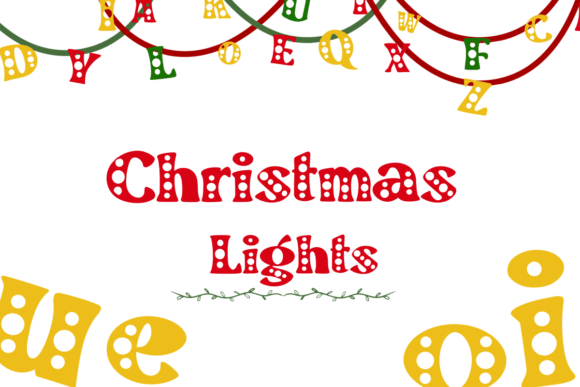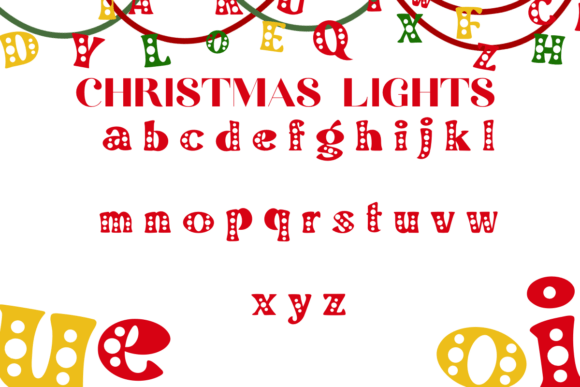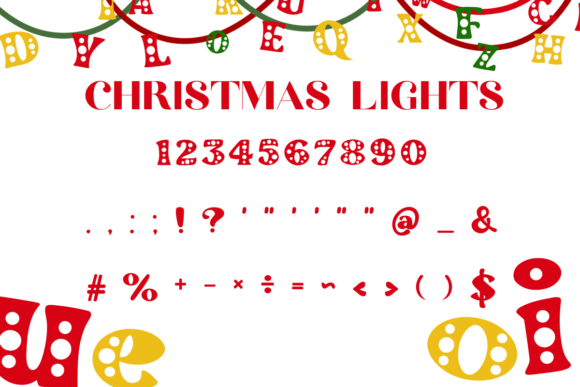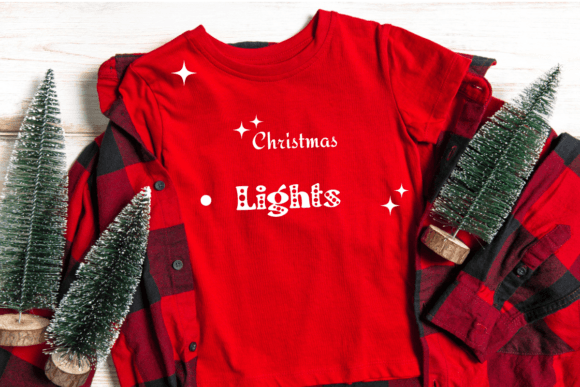
Christmas Lights Font
Christmas Lights is a festive, decorative font where each letter is outlined with small circles, resembling colorful Christmas lights. It’s playful and perfect for holiday designs!